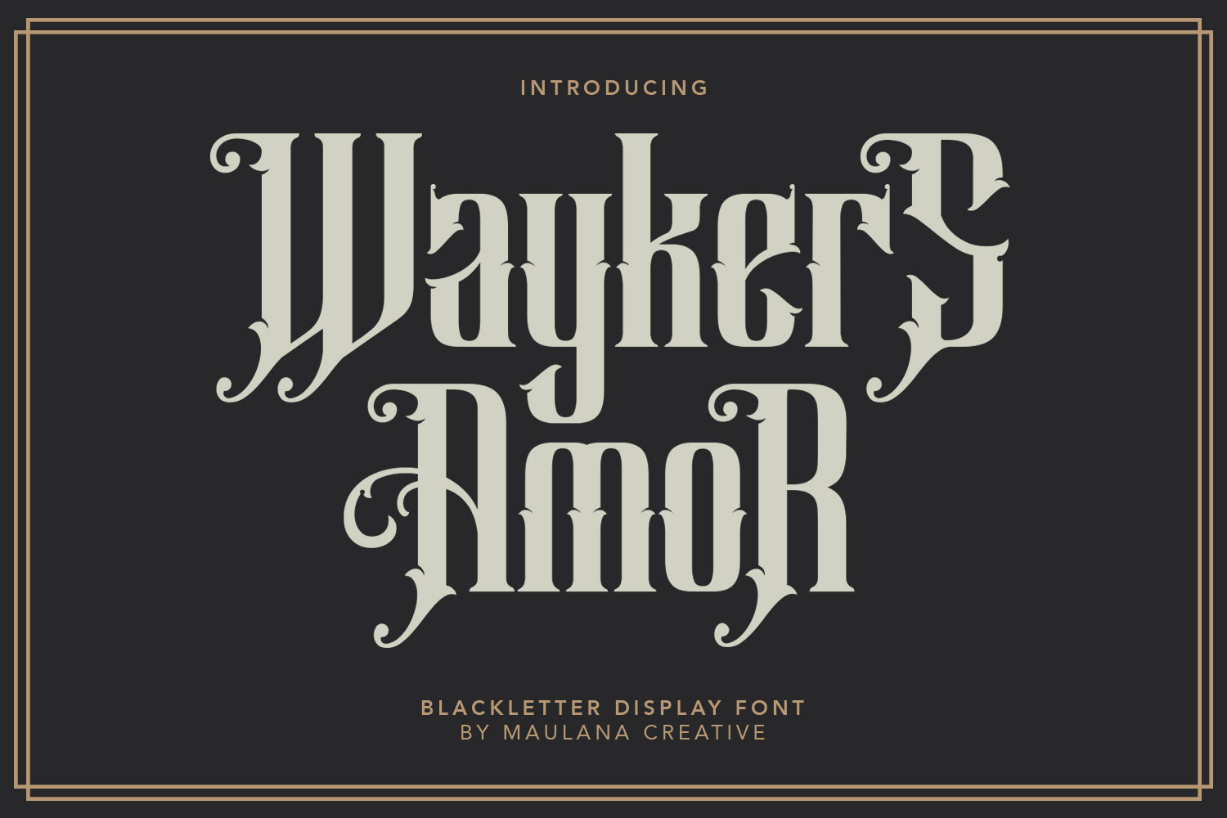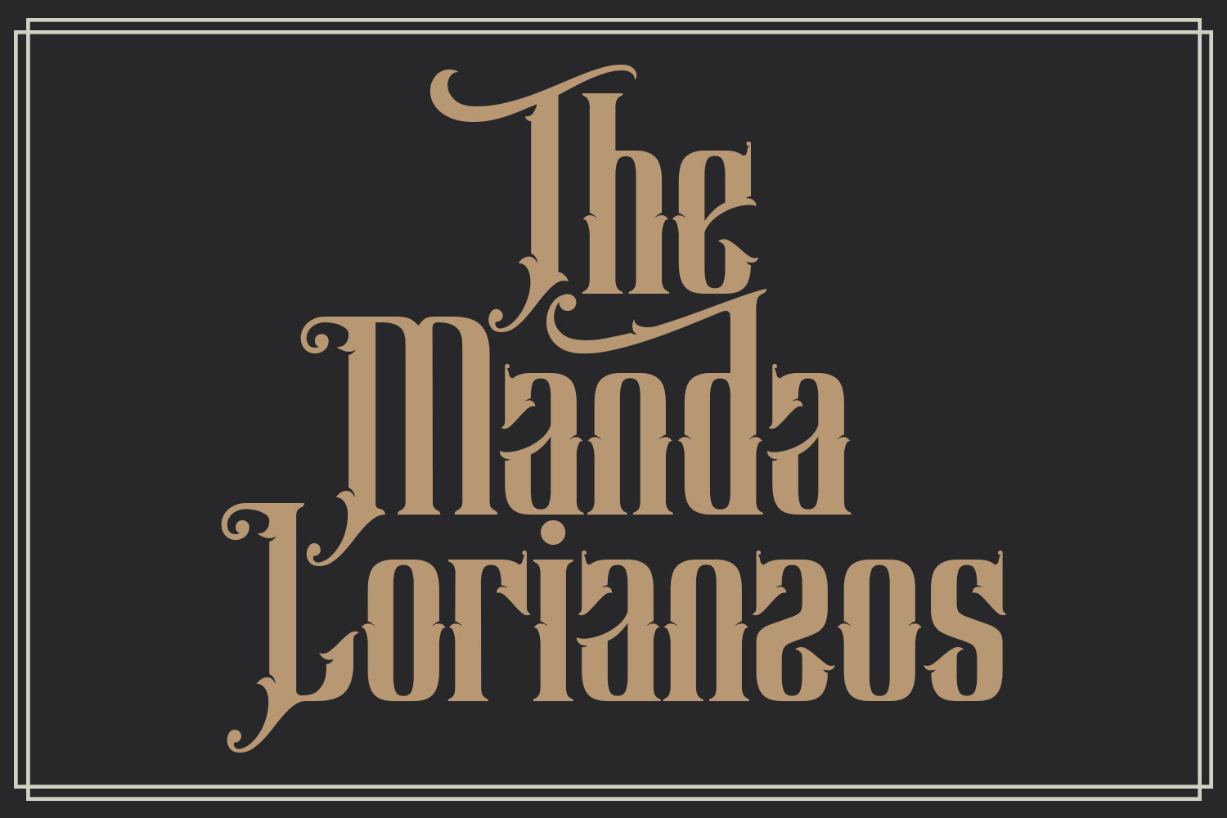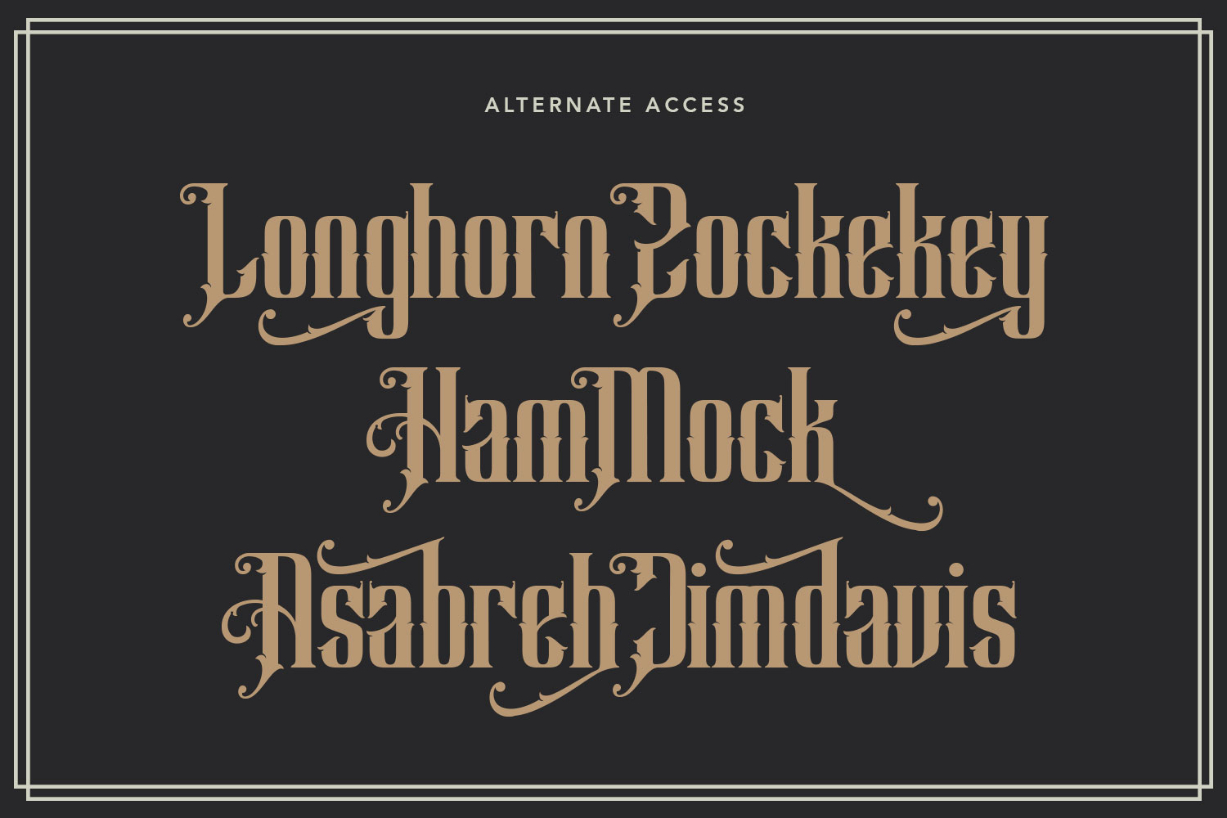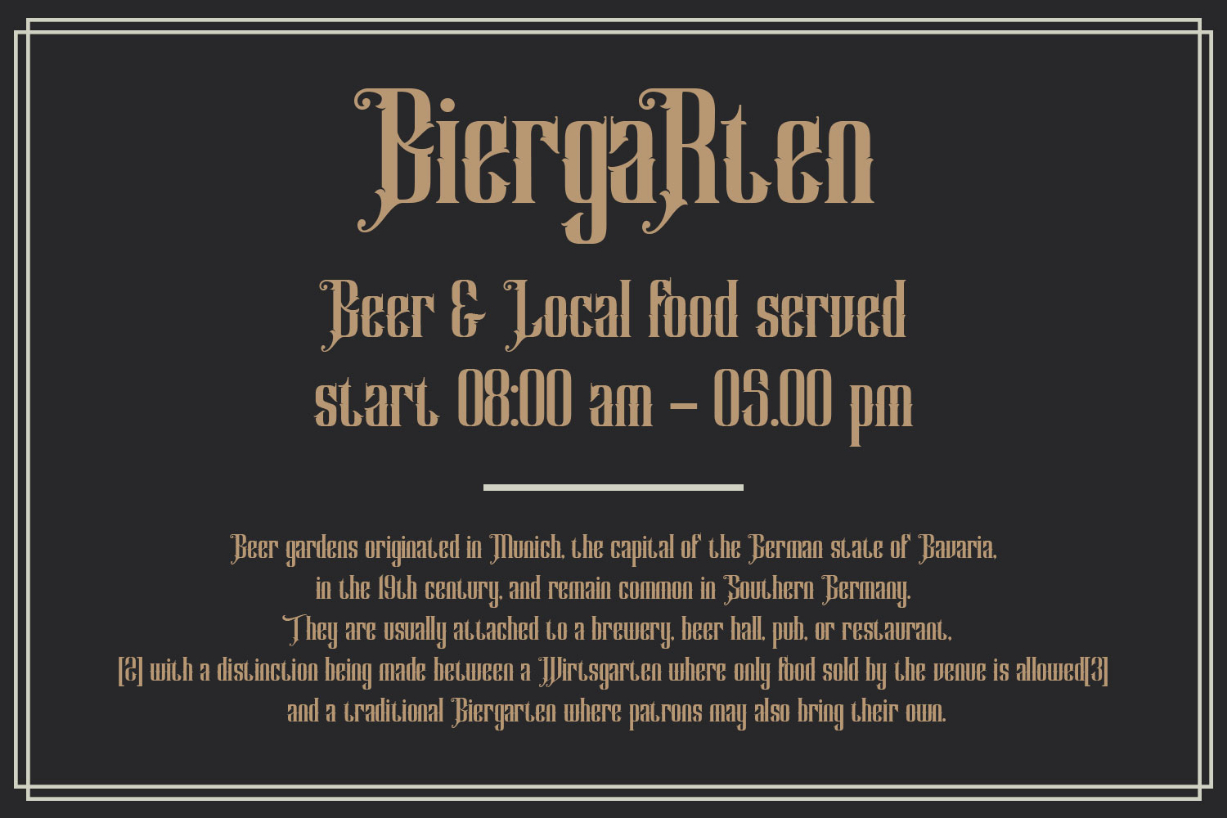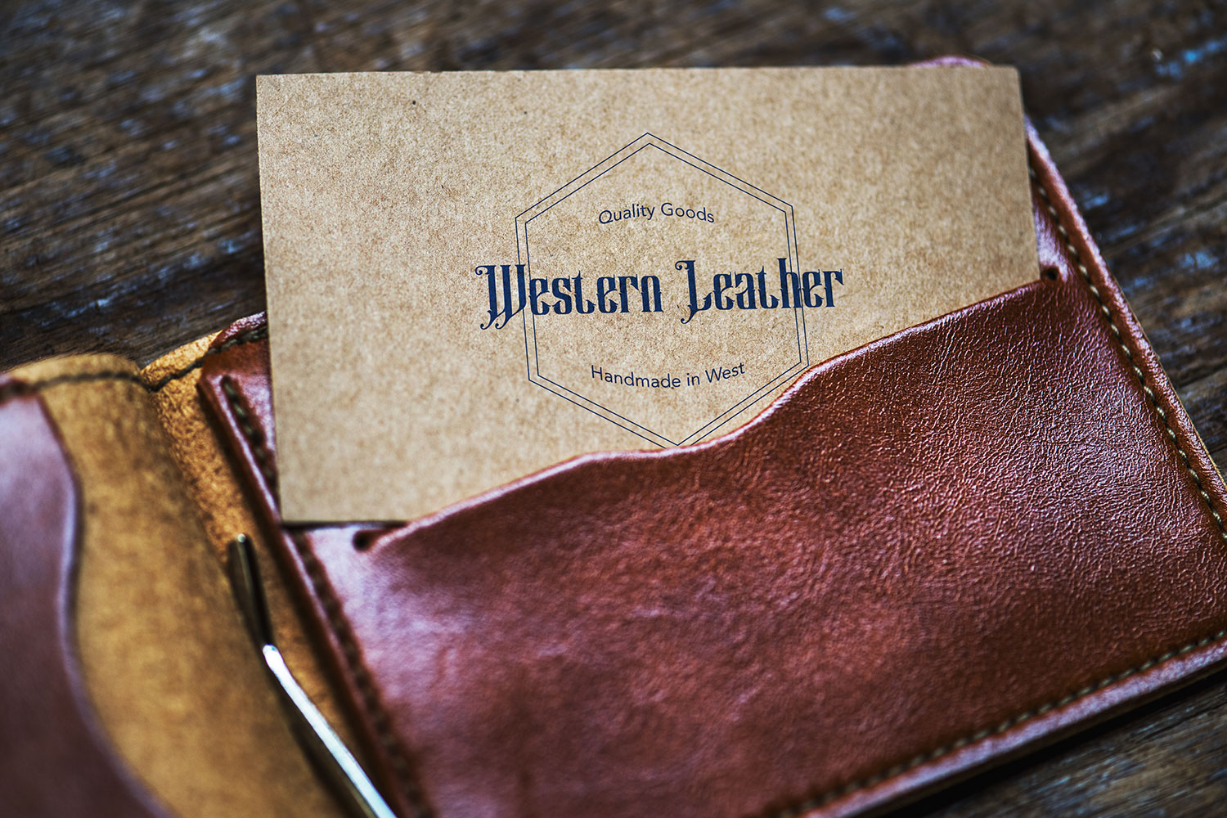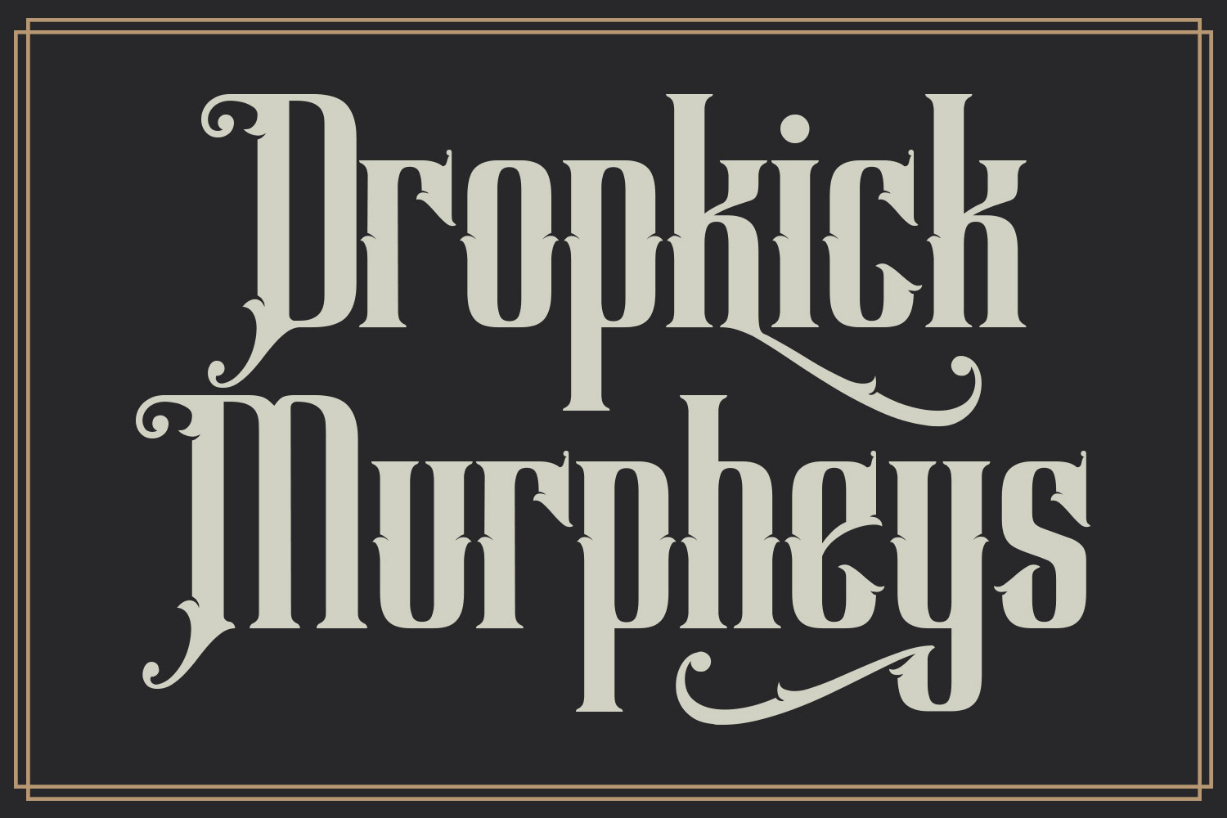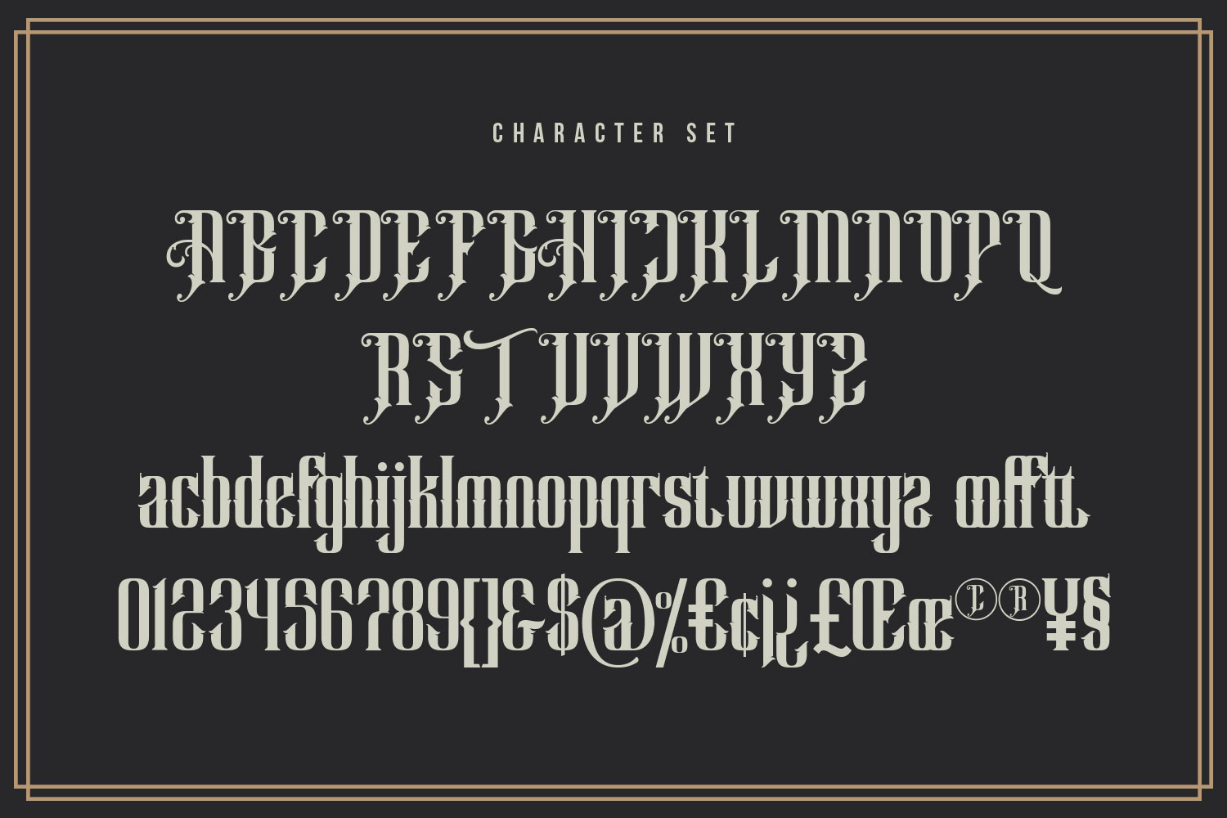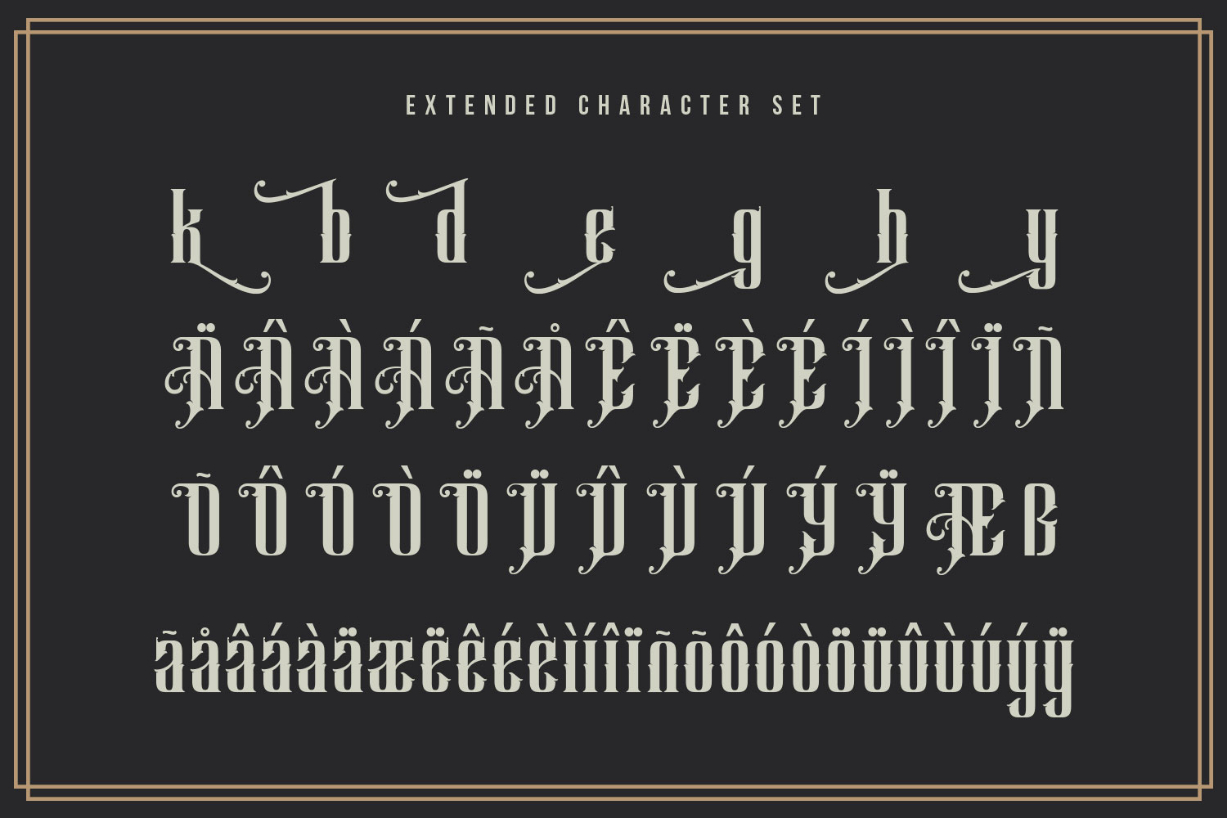
Waykers Amor Font
About Waykers Amor Font
Waykers Amor is a bold and dramatic blackletter font. Authentic and interesting, this font will make each of your inspired ideas come alive!